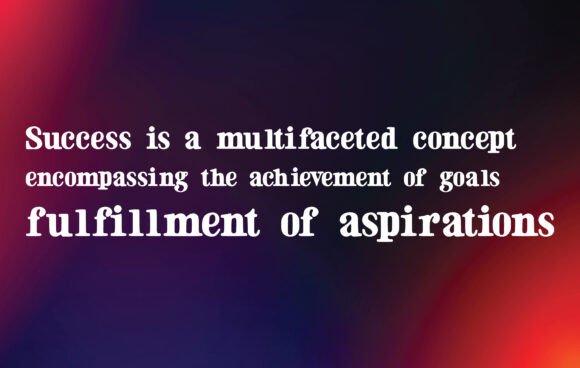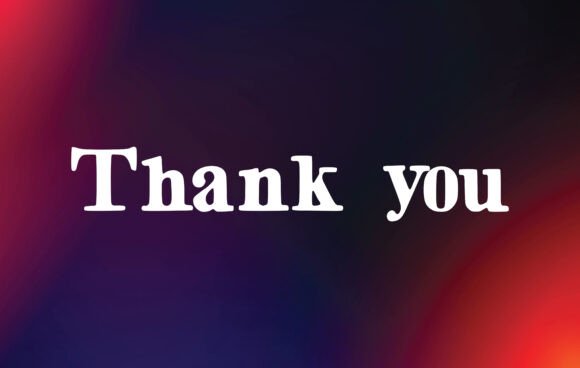
Introduction to Janice Font
As you sit at your desk, staring blankly at your computer screen, the blank canvas of your latest design project stares back at you. The cursor blinks, taunting you to bring your creative vision to life. And then, it hits you – the perfect font. The one that will elevate your design from good to great. For many designers, this moment is a game-changer, and it’s all thanks to a high-quality design resource like the Janice Font.
The Janice Font is more than just a pretty face – it’s a versatile and elegant typeface that’s perfect for creating eye-catching logos, branding, and quotes. With its transparent background and high-quality design, it’s a valuable addition to any designer’s toolkit.
Key Features of Janice Font
- Includes both regular and bold font styles, providing flexibility for different design needs
- Designed with a unique, modern aesthetic, making it perfect for branding, logos, and advertising materials
Honest Review: Janice Font
As a designer, I’m always on the lookout for high-quality design resources to elevate my creative projects. The Janice Font caught my attention with its elegant and sophisticated style. In this review, I’ll share my honest thoughts on what works well and any limitations I encountered.
- Unique and stylish design: The Janice Font has a distinct personality that sets it apart from other fonts. Its elegant lines and refined details make it perfect for high-end creative projects.
- High-quality design: The font is well-crafted and has a high level of detail, making it suitable for both digital and print use.
- Limited language support: Unfortunately, the Janice Font only supports a limited number of languages, which might be a concern for designers working on international projects.
Overall, I’m impressed with the Janice Font’s unique design and high-quality construction. While it may have some limitations, it’s an excellent choice for designers looking for a stylish and elegant font for their creative projects. If you’re working on a project that requires a sophisticated look, the Janice Font is definitely worth considering.
Getting the Most Out of Janice Font
Janice Font is ideal for creative projects requiring a high-quality, transparent background. To get the most out of it, use it for designs that require a clean and modern look.
Janice Font is commonly used for logo design, branding, and marketing materials. Its high-quality design makes it perfect for presentations, social media graphics, and website design.